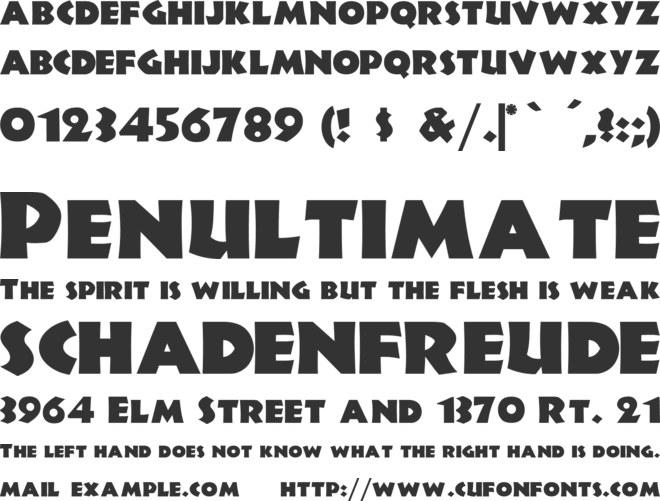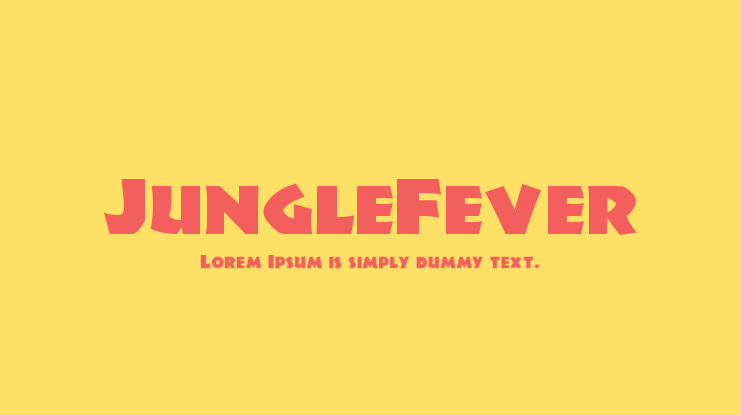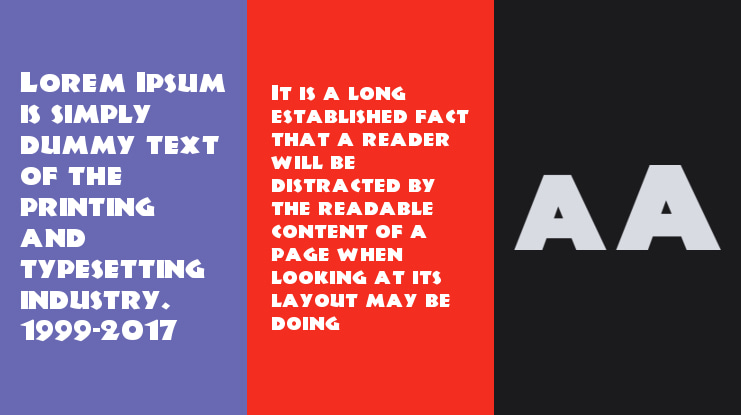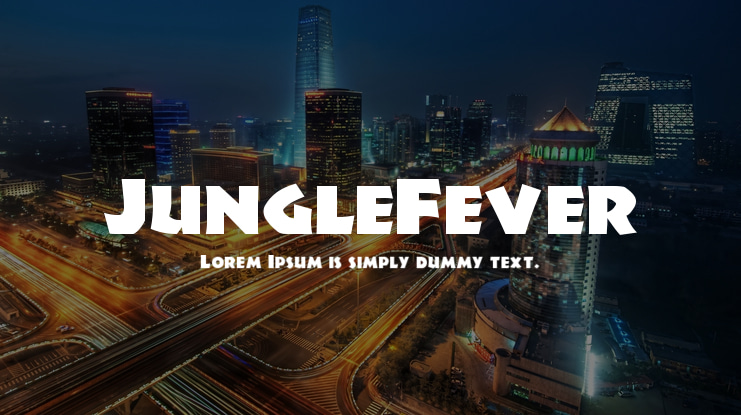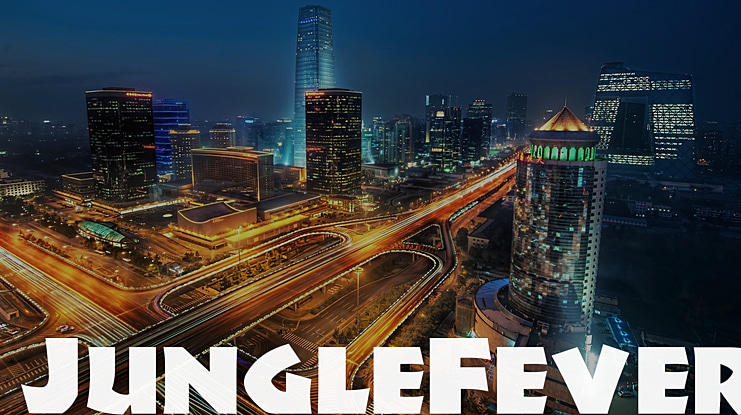
JungleFever Font
A new take on the classic font Neuland, designed by Rudolph Koch in 1923. According to an advertising piece for the original typeface, its name is an acronym for New, Effective, Useful and Legible, is Always Novel and Dramatic. I guess some things (like hype) never change.